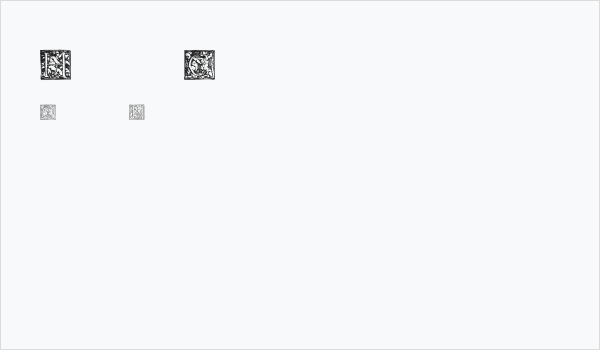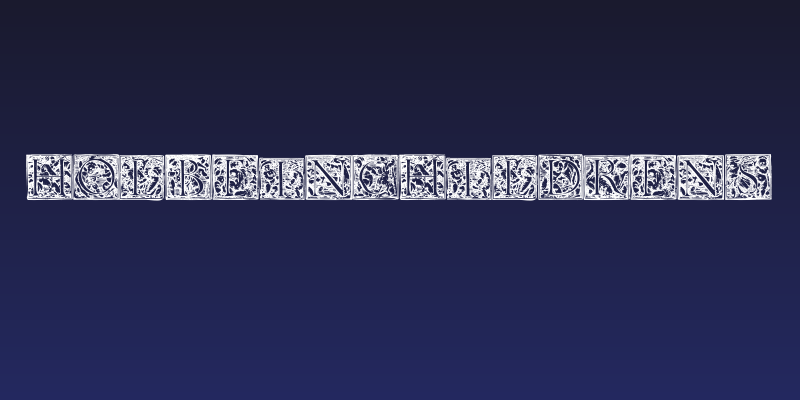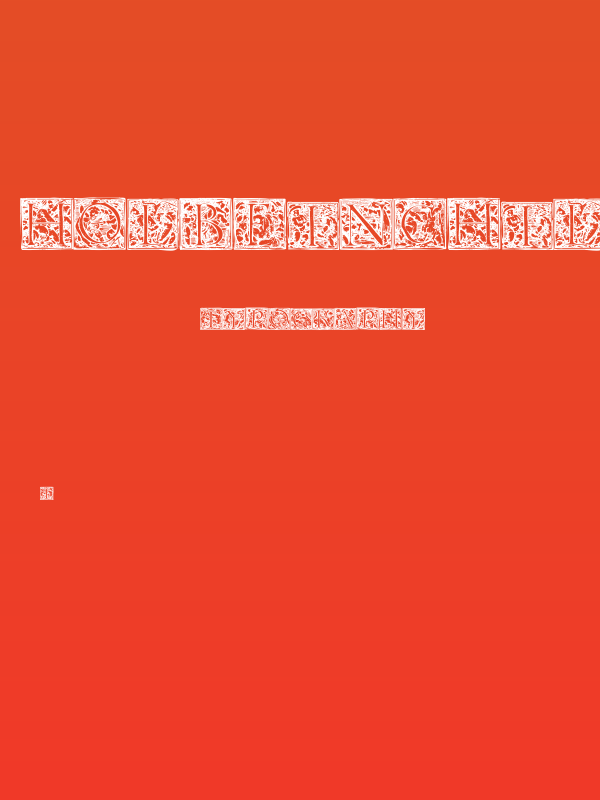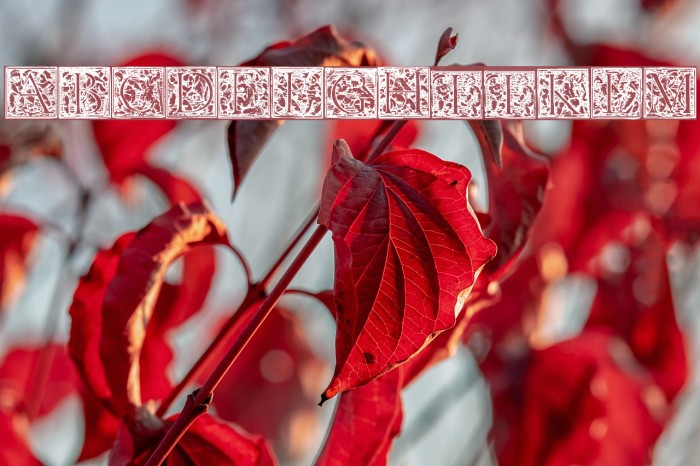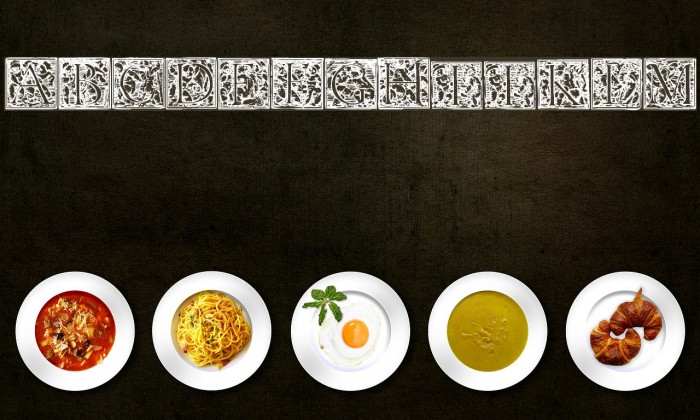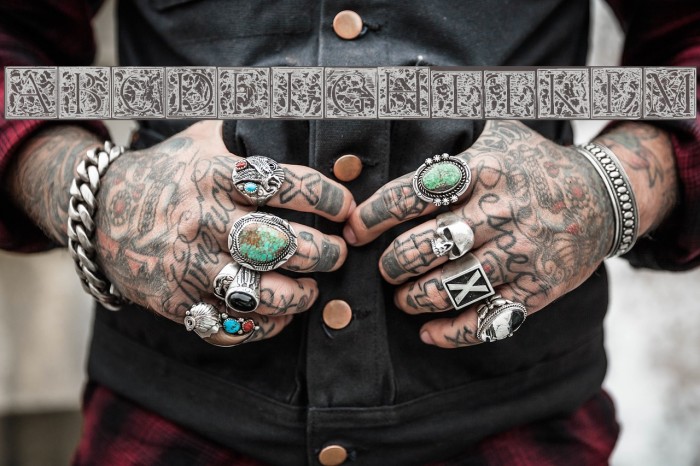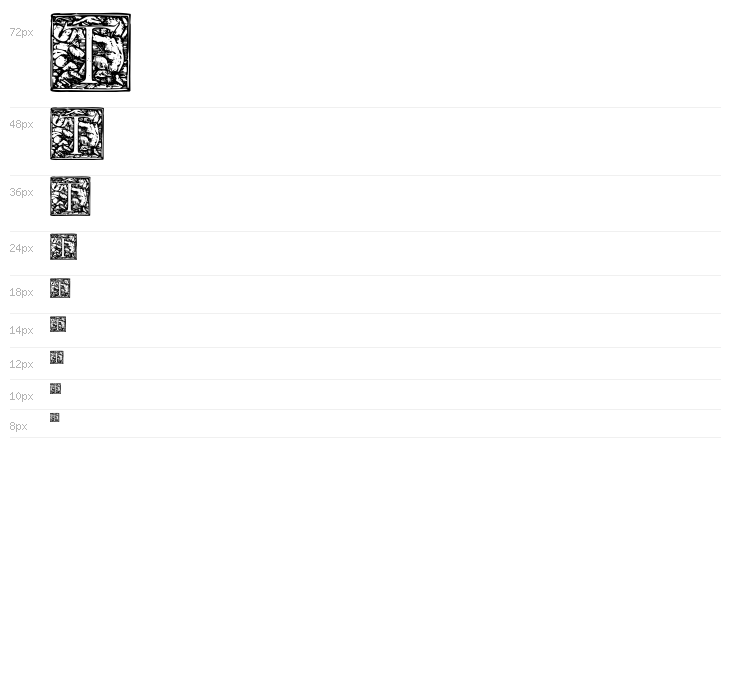
HolbeinChildrens Font
HolbeinChildrens Description
This font is a highly decorative and intricate typeface, featuring ornate designs within each character. Each letter is enclosed in a square, with elaborate floral and vine motifs filling the space around the letterforms. The style is reminiscent of historical or medieval script, offering a sense of elegance and artistry. The detailed embellishments make it suitable for projects that require a touch of sophistication and classical beauty. The font's unique design makes it stand out, perfect for creating a visual impact.
| Proposed Projects | Ideal for use in invitations, book covers, posters, and any project requiring a historical or artistic flair. |